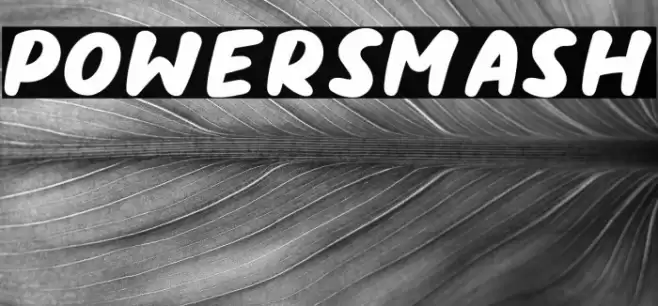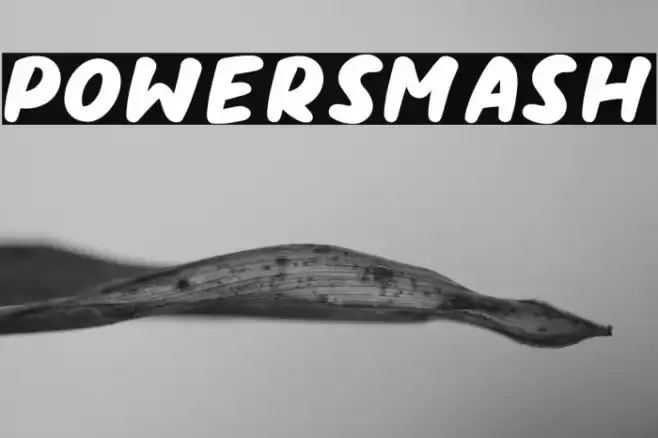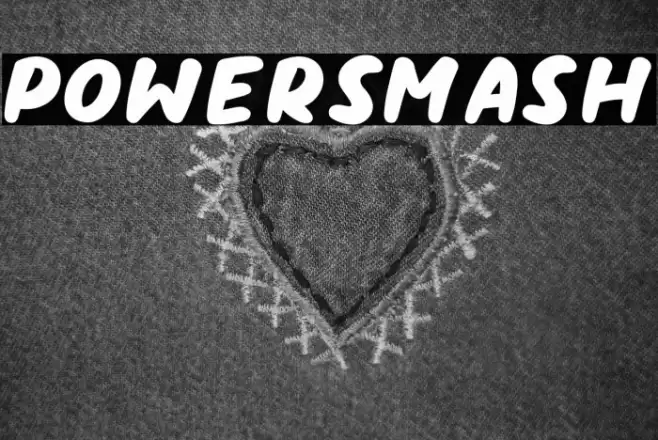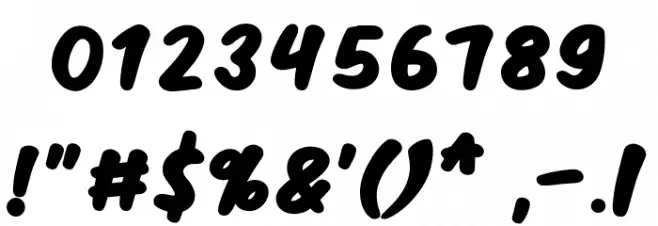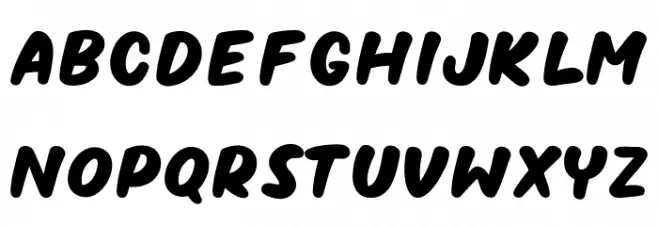
PowerSmash Font
PowerSmash Description
This font features a bold, playful style with rounded edges and a smooth, flowing appearance. The characters are slightly slanted, giving a dynamic and energetic feel. The uppercase and lowercase letters maintain a consistent thickness, contributing to a cohesive look. The numbers and special characters are designed to match the overall aesthetic, ensuring uniformity across all glyphs. This font's design is reminiscent of casual handwriting, making it approachable and friendly. Its boldness ensures high readability, while the rounded forms add a touch of softness and approachability.
A bold, playful font with rounded edges and a dynamic, handwritten style from Uncategorized fonts.
- Font: PowerSmash
- Proposed Projects: Ideal for children's books, playful branding, casual invitations, and social media graphics.
- Overall Style: Playful
- Use Case: Logos, Headlines, Posters